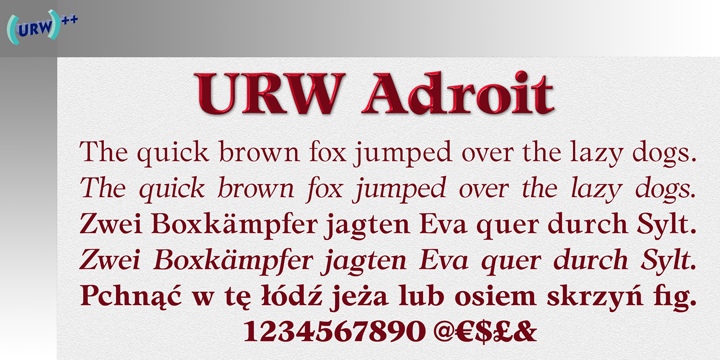
Adroit Font
Adroit Font is perfect for professional consulting branding, corporate strategy presentations, executive communications, business intelligence reports, management consulting materials, strategic planning documents, leadership development programs, high-level corporate training, financial advisory services, and sophisticated business publications.
What makes Adroit Font so exciting is its masterful blend of intellectual sophistication and strategic clarity that perfectly embodies the essence of skilled expertise and professional competence through precisely crafted letterforms that communicate intelligence, capability, and executive-level authority. This typeface captures the spirit of strategic thinking through its balanced geometry and confident structure that immediately conveys expertise, analytical precision, and professional mastery. The font's compelling appeal stems from its ability to communicate competence, strategic insight, and intellectual authority while maintaining exceptional functionality for complex business communications and professional documentation.
Adroit Font comes in multiple weights and styles including Thin, Light, Regular, Medium, Semibold, Bold, and Black variations, each available in Roman and Italic styles, providing comprehensive typographic solutions for sophisticated corporate communication systems and professional brand hierarchies.
Business strategy professionals and corporate communications specialists consistently select Adroit Font for projects requiring intellectual credibility and executive positioning. Its sophisticated styling makes it particularly effective for consulting firms, financial services, corporate training organizations, and executive leadership programs seeking to communicate expertise, strategic thinking, and professional excellence. The font's authoritative presence and intellectual authenticity create immediate recognition of professional competence while communicating values of strategic insight, analytical rigor, and executive capability that are essential for success in competitive professional service markets.